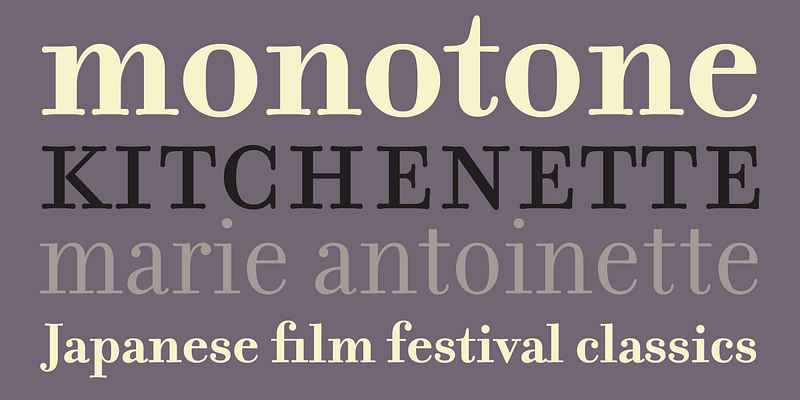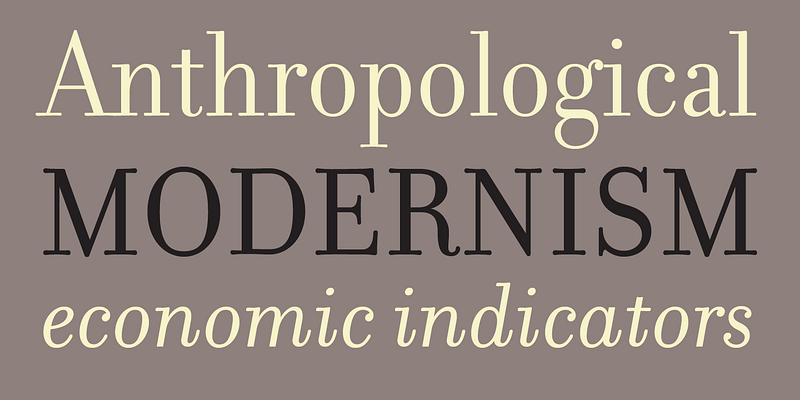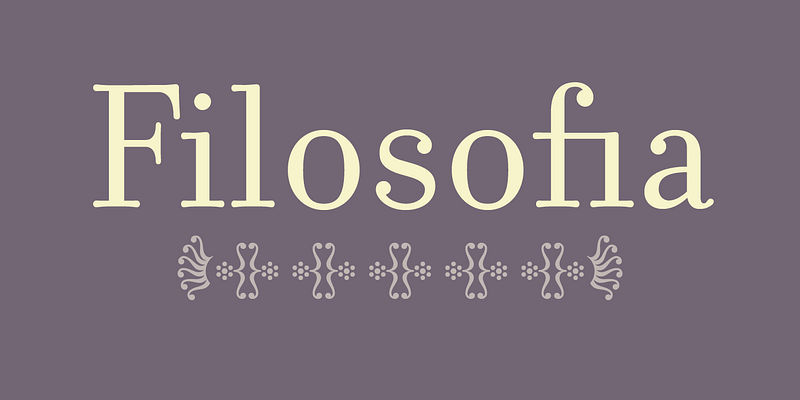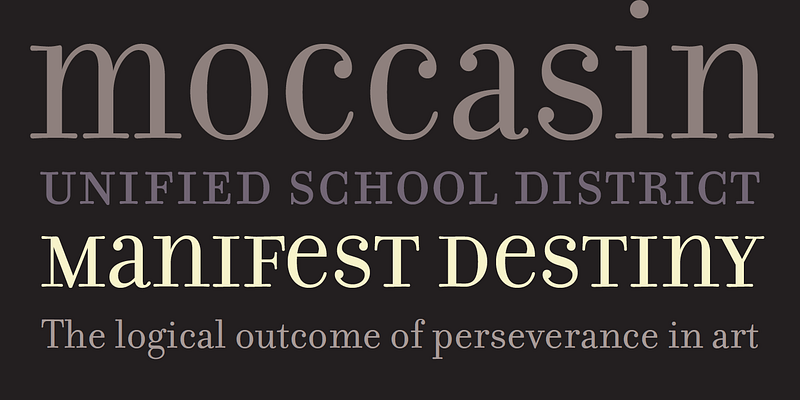
Filosofia is Zuzana Licko’s interpretation of a Bodoni font. It shows her personal preference for a geometric Bodoni, while incorporating such features as slightly bulging round serif endings which often appeared in the printed samples of Bodoni’s work and reflect Bodoni’s origins in letterpress technology.
The Filosofia Regular family is designed for text applications. It is somewhat rugged with reduced contrast to withstand the reduction to text sizes. The Filosofia Grand family is intended for display applications and is therefore more delicate and refined.
An additional variant, included in the Grand package, is a Unicase version which uses a single height for characters that are otherwise separated into upper and lower case. This is similar to Bradbury Thompson’s Alphabet Twenty Six, except that Thompson’s goal was to create a text alphabet free of such redundancies as the two different forms which represent the character “a” or “A”, whereas Filosofia Unicase does have stylistic variants to provide flexibility for headline use.
To see a comparison with other designs inspired by Bodoni, visit the website of the Museo Bodoniano, the oldest printing museum in Italy. Among a wealth of information about Bodoni, the museum’s website also features a type tester that lets you compare a number of interpretations of Bodoni’s types from various foundries including Emigre’s Filosofia.